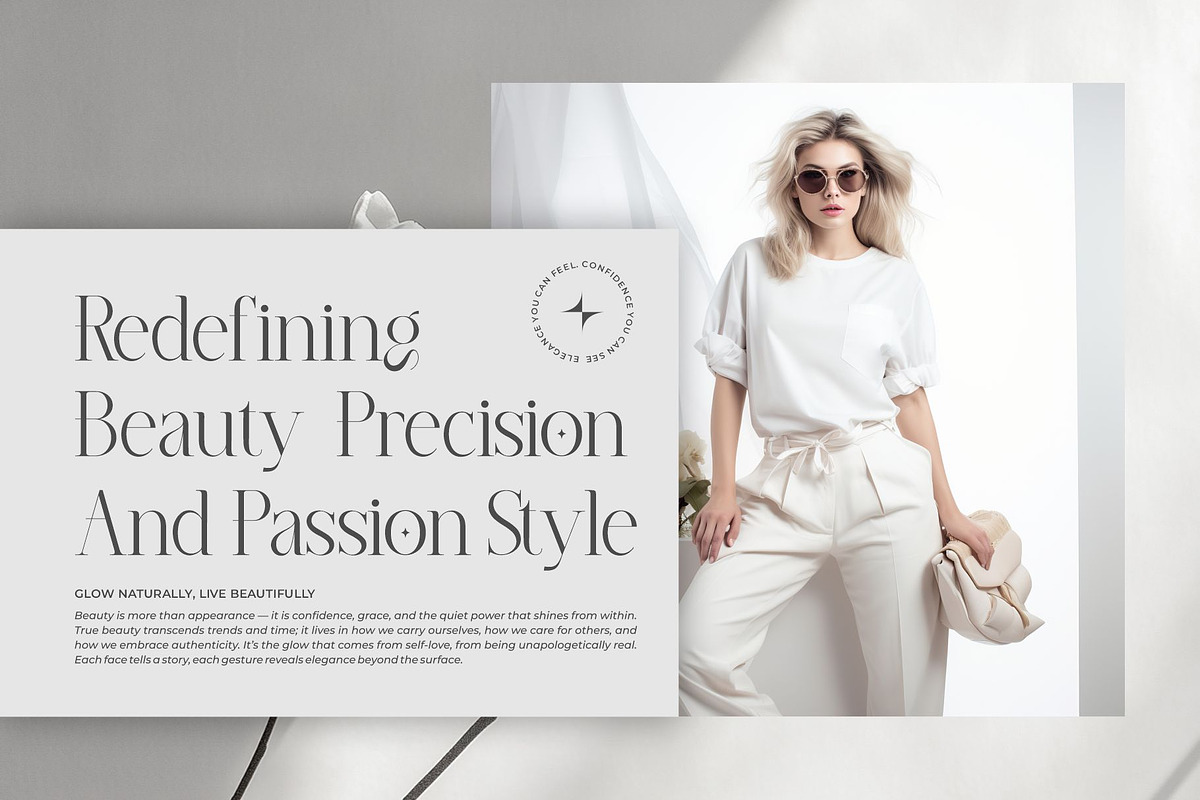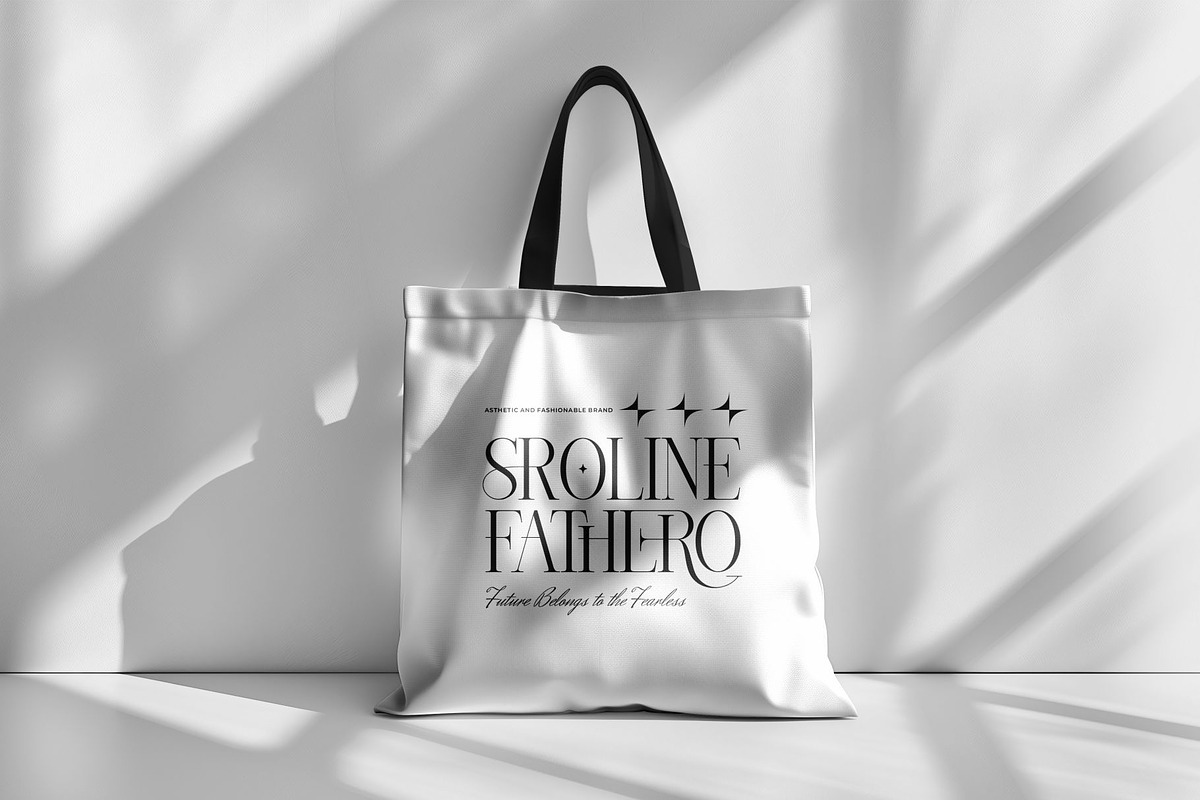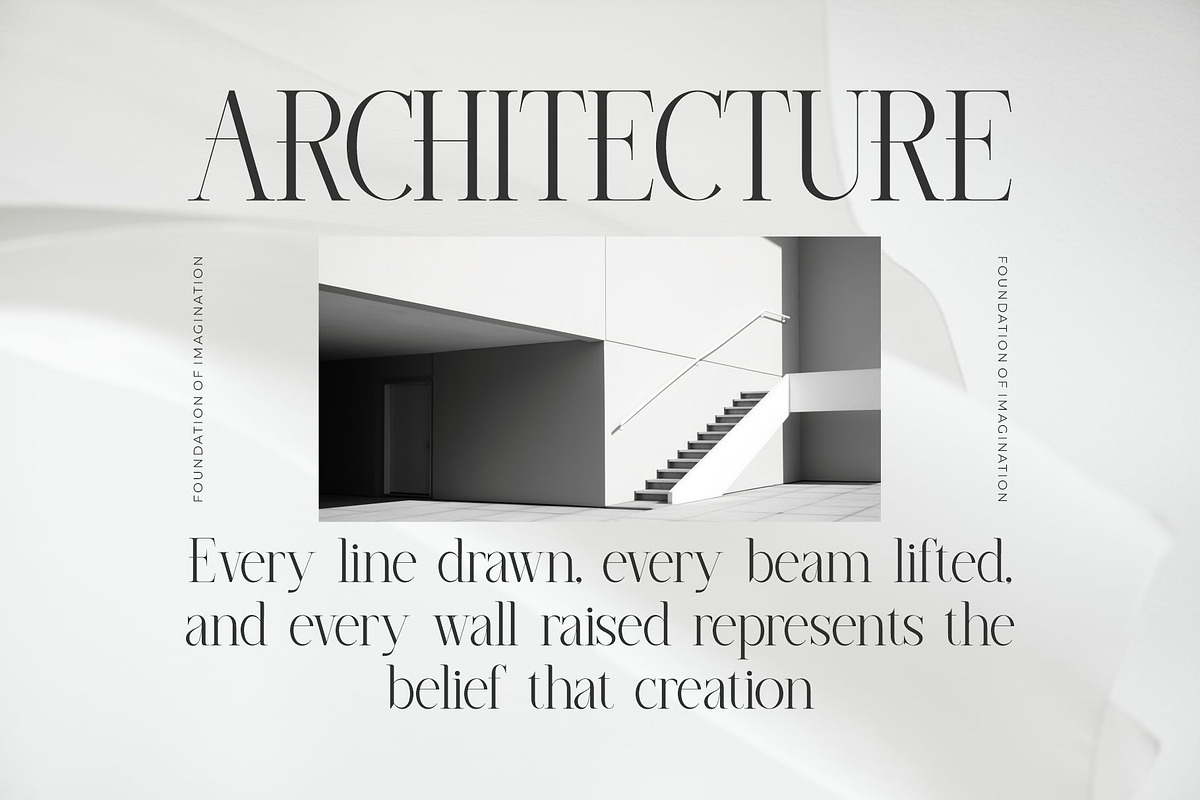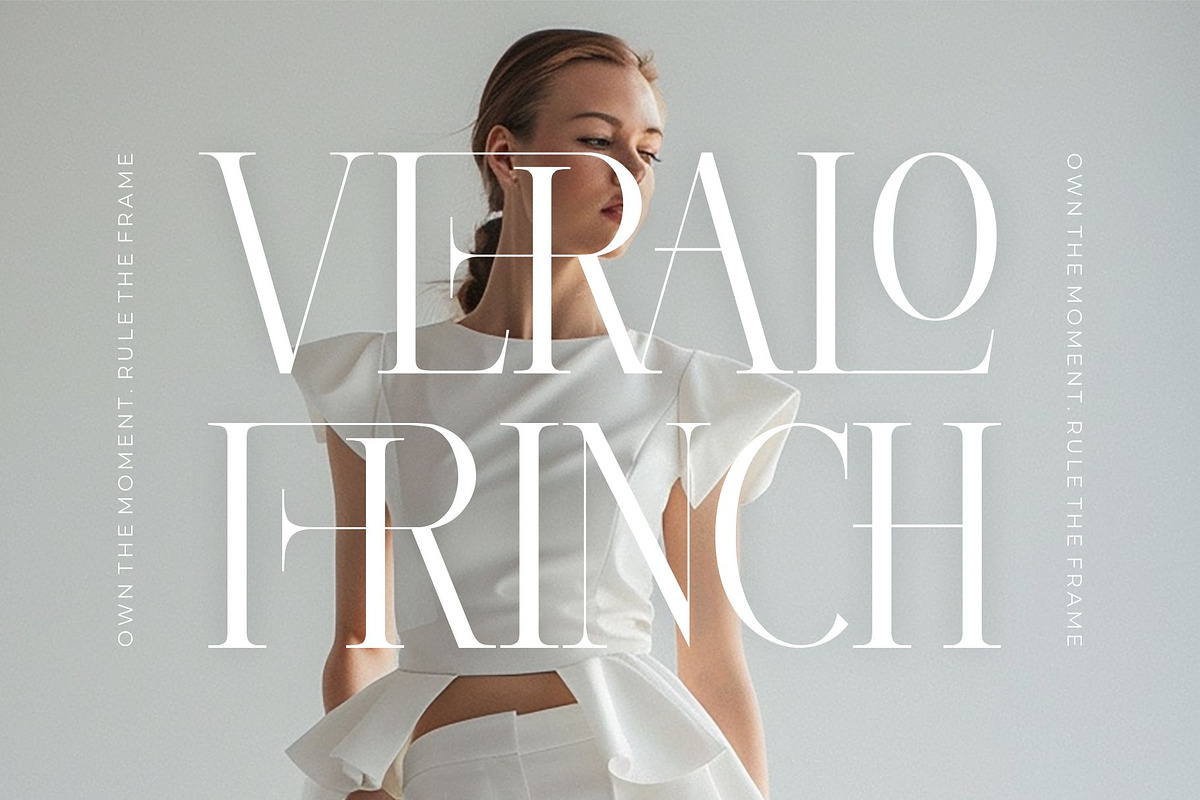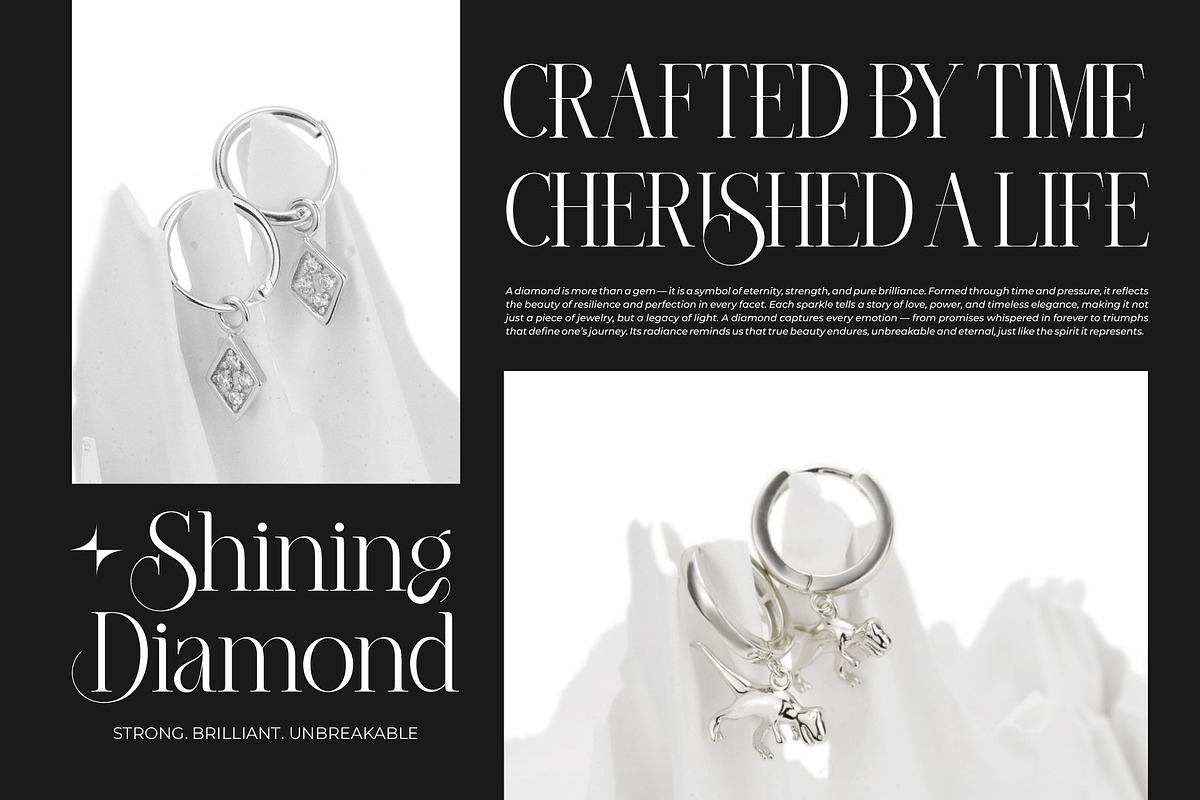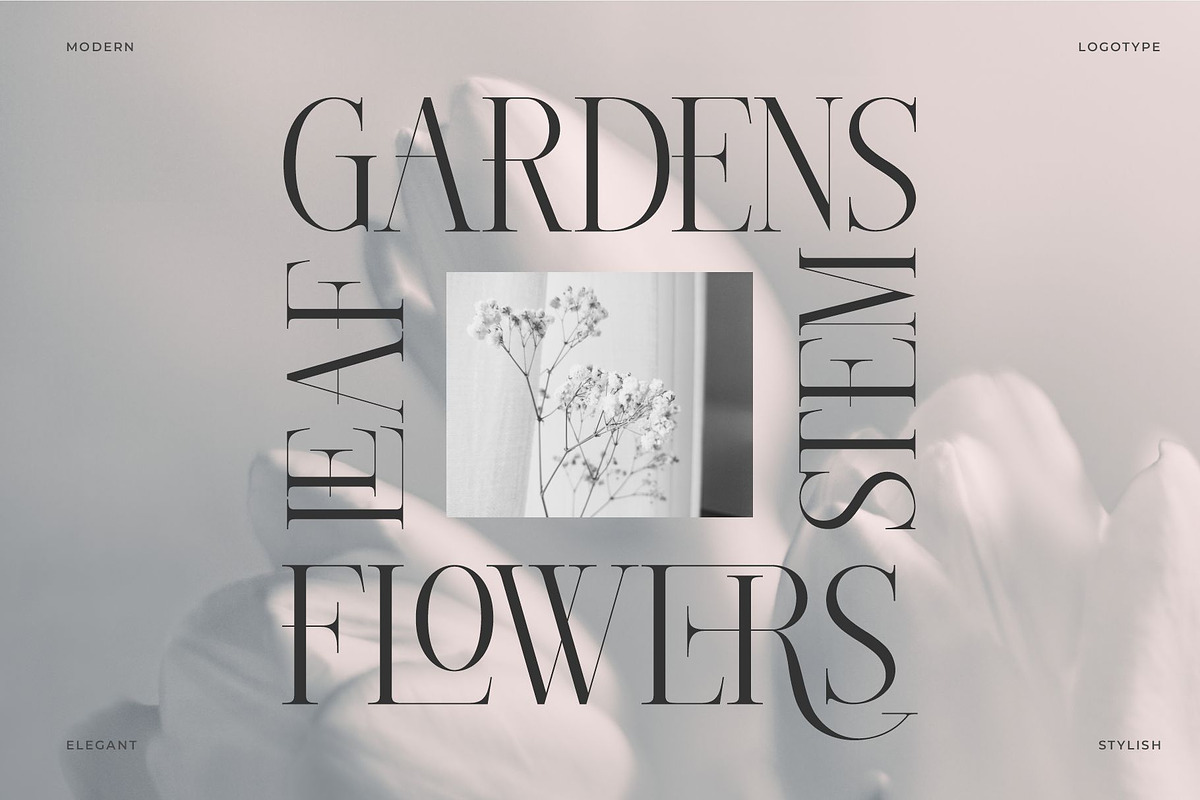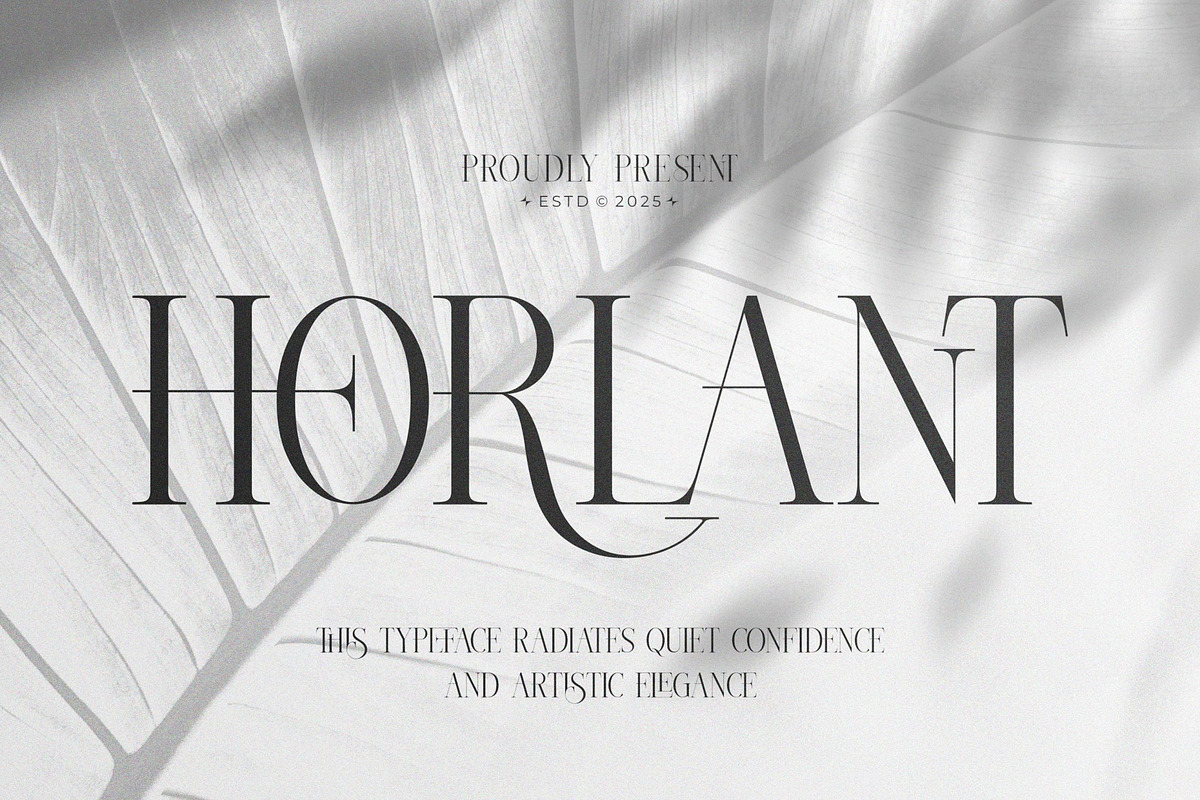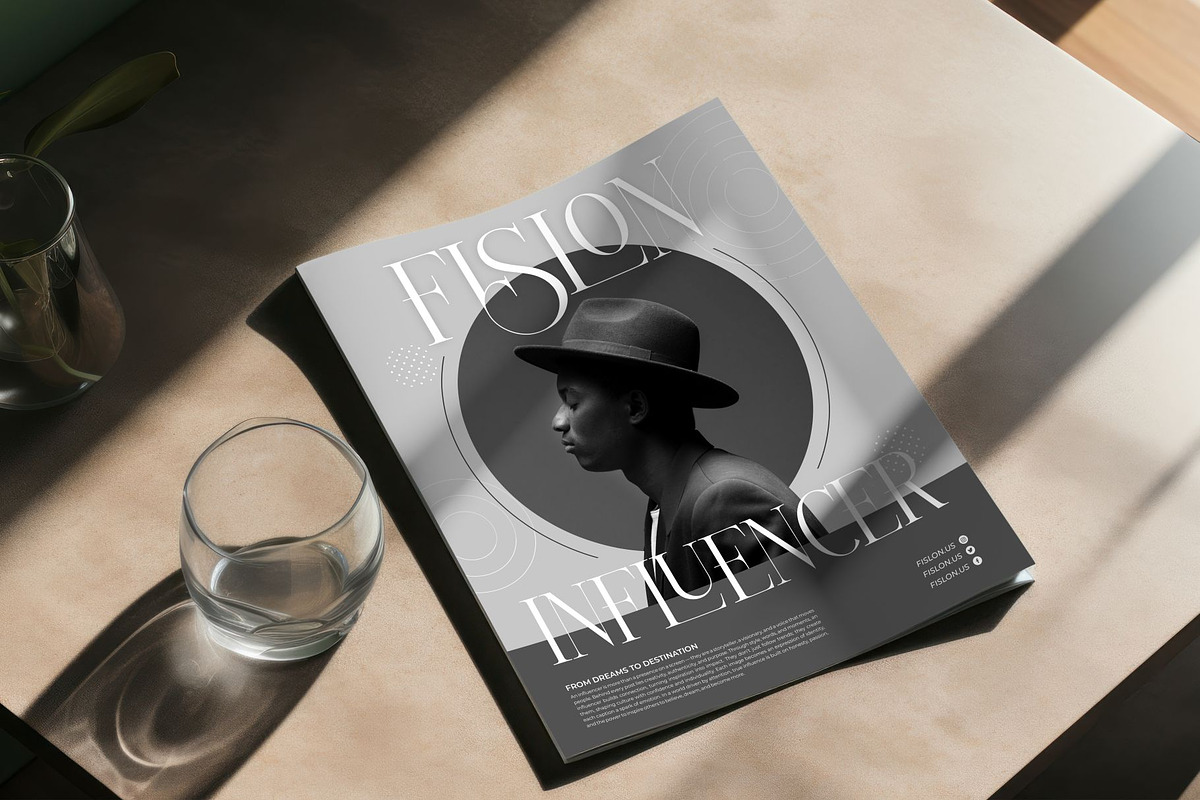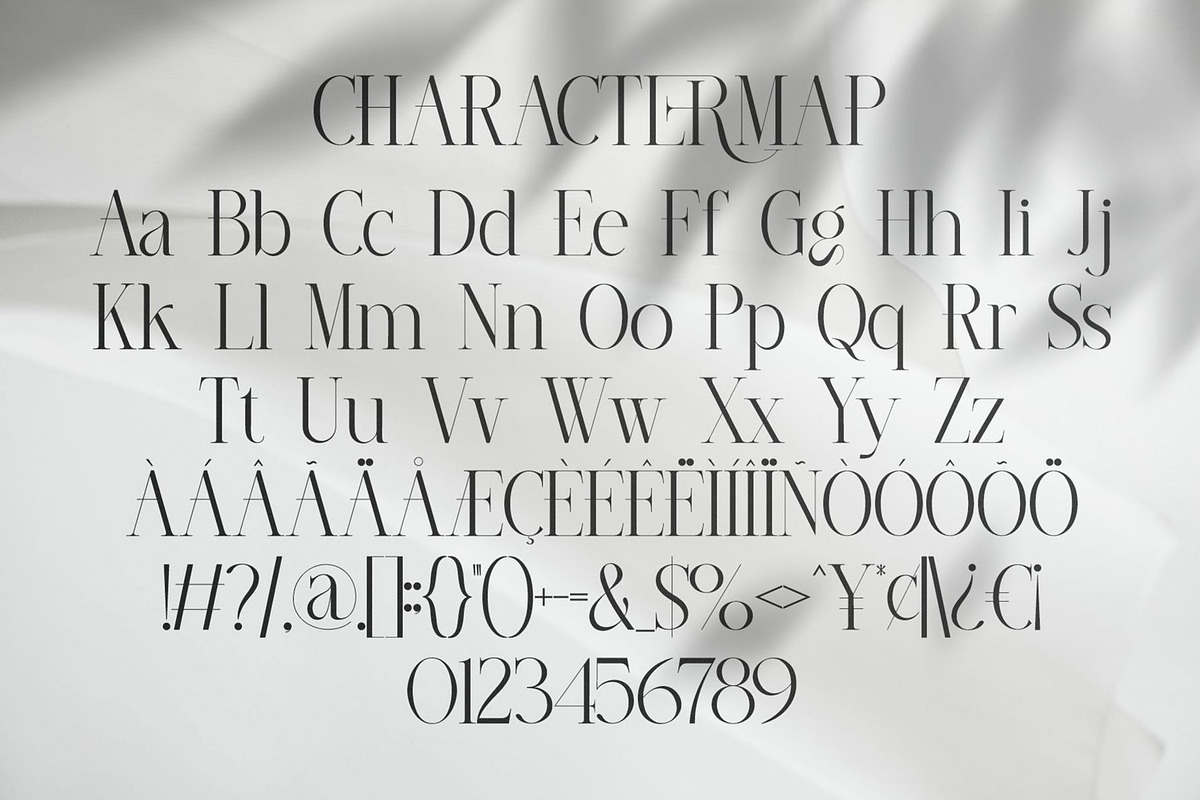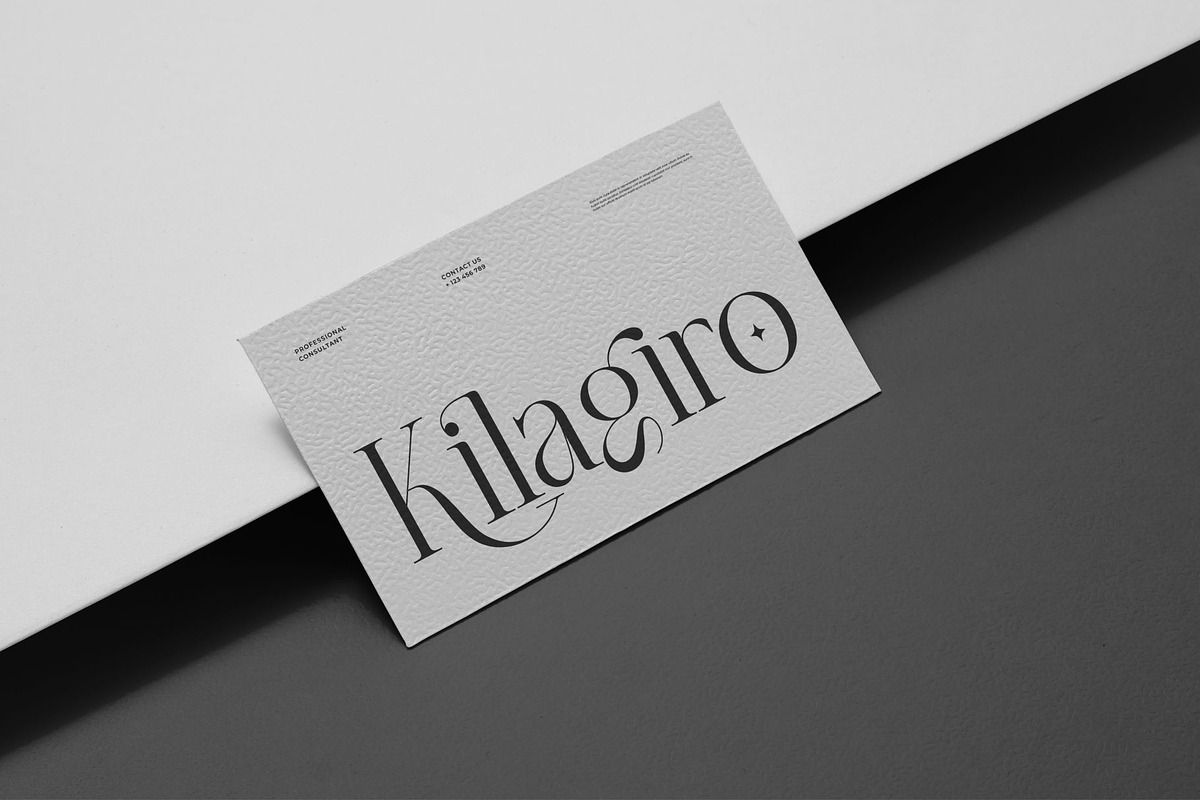
Horlant || Modern Minimalist Serif
Horlant Serif is a modern and minimalist font type for all branding and logo designs. This modern and minimalist Serif font has a beautiful character. This font is suitable for invitation card designs, cool logos, movie titles, movie names, business cards, book titles, brand names, and various other designs. Horlant Serif is a smooth serif font that exudes sophistication and the moment. Its stylish ligatures make this font a perfect partner for any project.